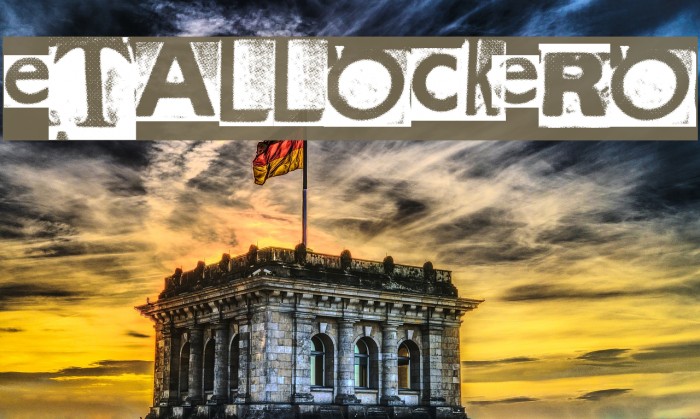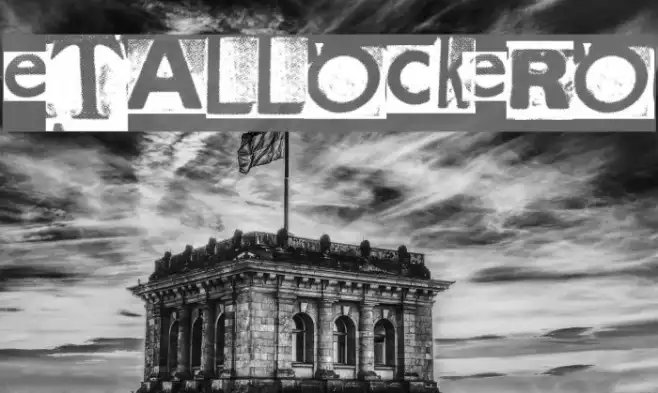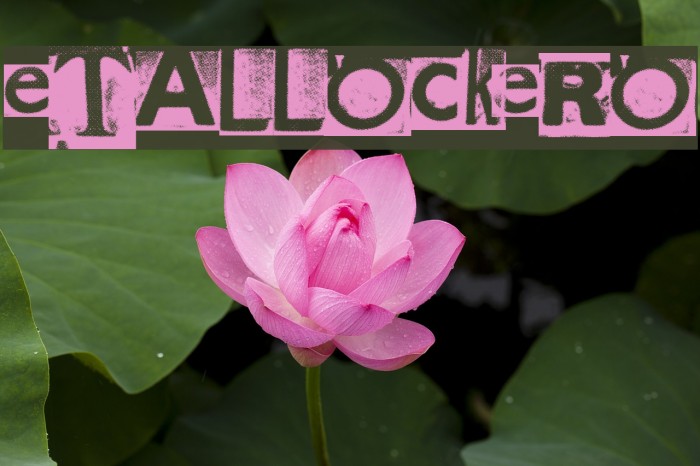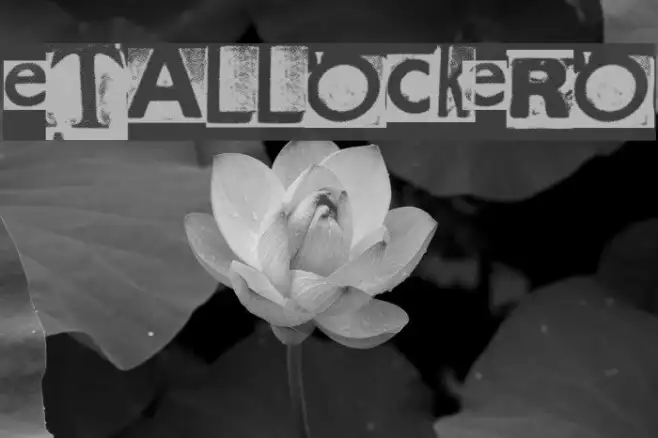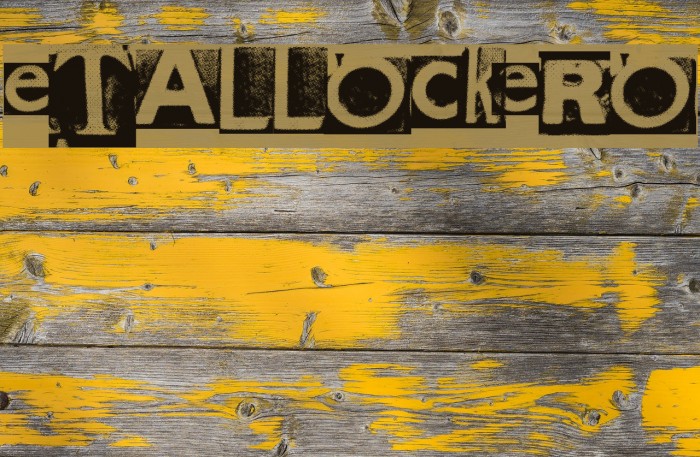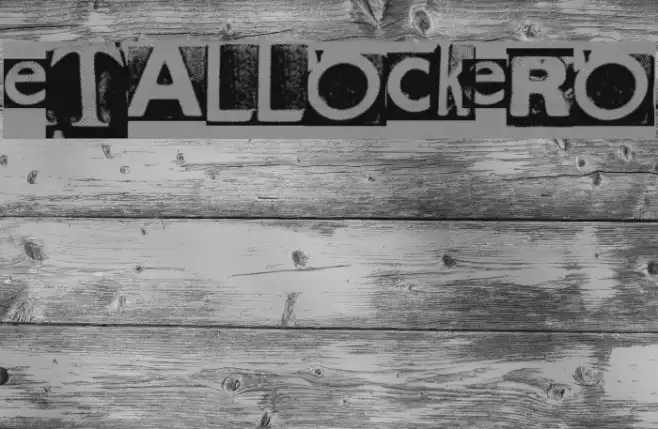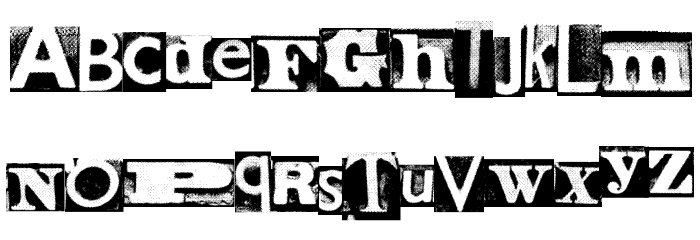
MetalBlockZero Font
MetalBlockZero Description
This font features a bold and impactful design with a distressed, grunge-like texture that gives it a vintage and industrial feel. The characters are blocky and robust, with a slightly uneven and worn appearance that adds character and depth. The uppercase letters are particularly striking, with strong lines and a commanding presence. The lowercase letters maintain the same rugged style, providing a cohesive look across the typeface. The numbers and special characters follow suit, ensuring consistency throughout. This font is ideal for projects that require a bold statement or an edgy, retro aesthetic.
| Overall Style | Vintage, Industrial |
| Proposed Projects | Ideal for posters, album covers, branding for edgy or retro-themed products, and any design needing a bold, vintage touch. |